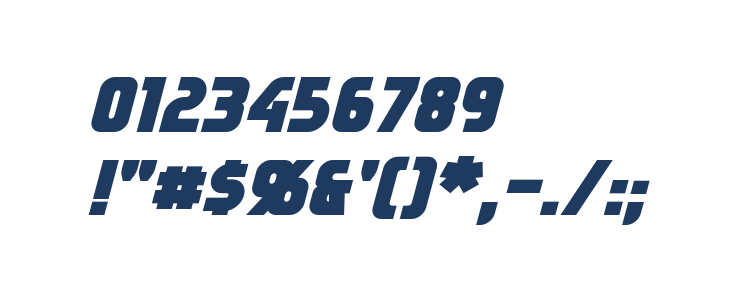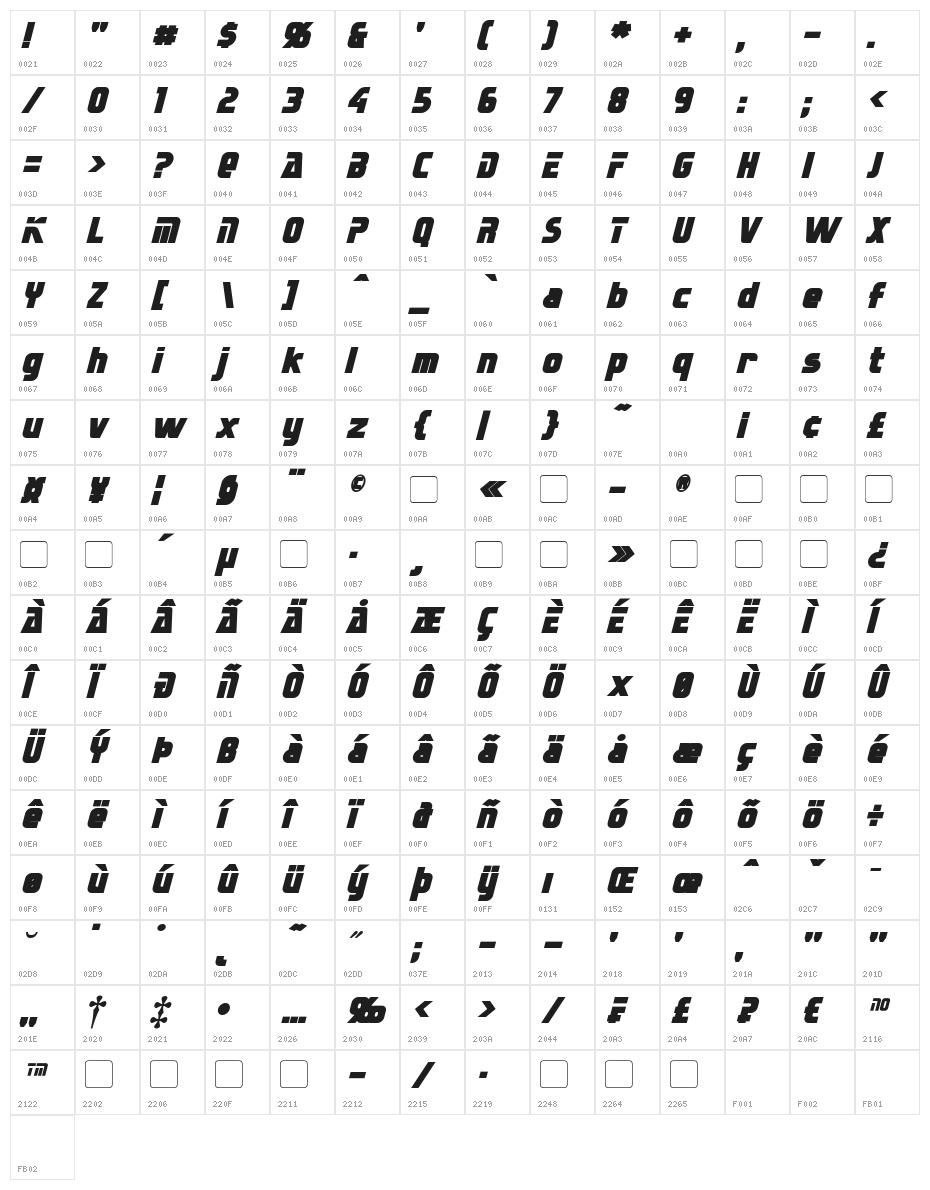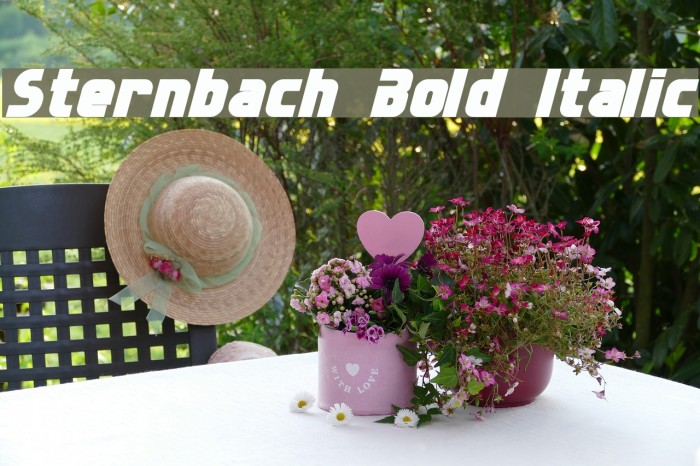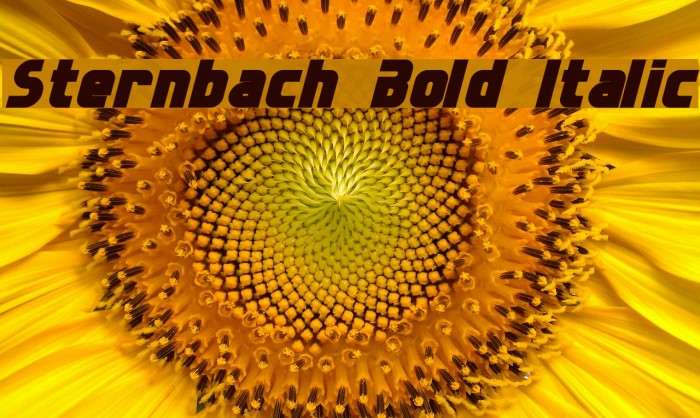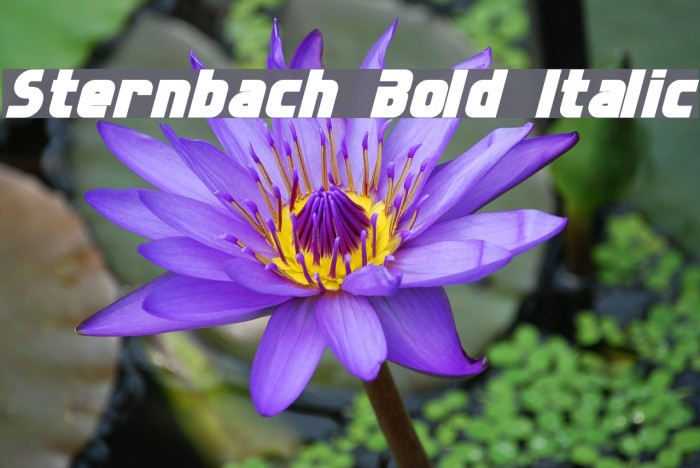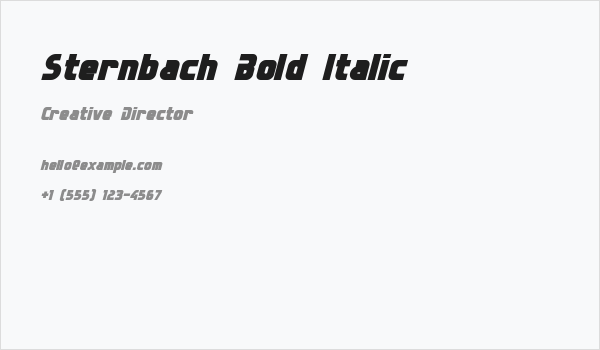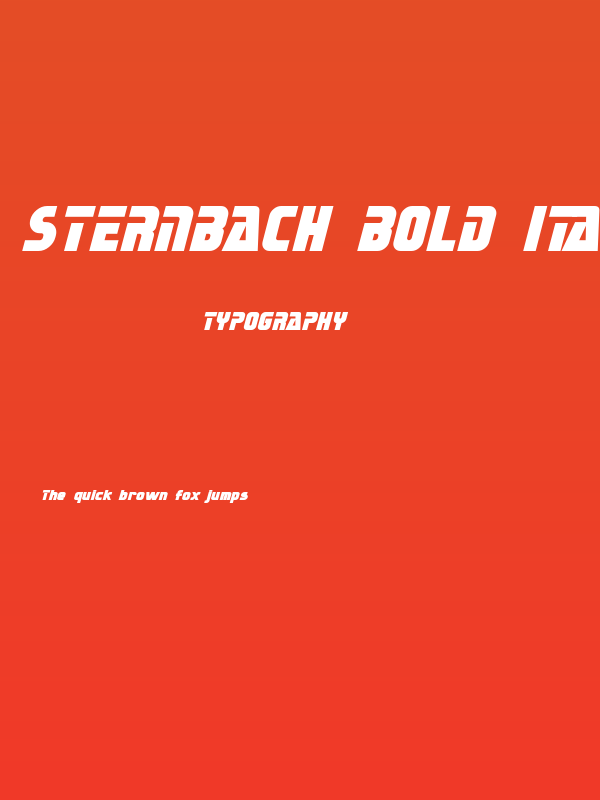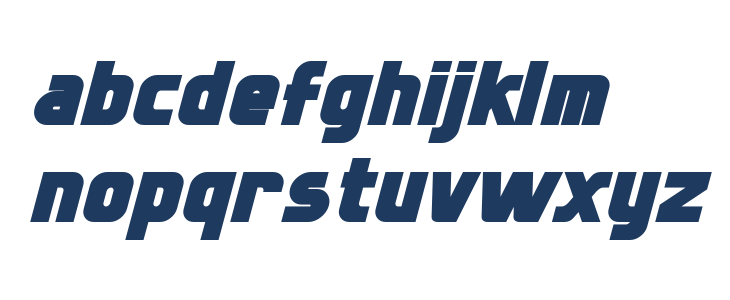
Sternbach Bold Italic Font
Sternbach Bold Italic Description
This font features a bold and italicized style with a strong, dynamic presence. The characters are designed with a forward-leaning slant, giving a sense of movement and urgency. The strokes are thick and consistent, providing a robust and impactful appearance. The uppercase letters are particularly striking, with angular cuts and sharp edges that enhance the font's modern and futuristic feel. The lowercase letters maintain the same boldness, ensuring readability while preserving the overall aesthetic. The numerals are equally bold, matching the style of the alphabetic characters. Special characters are included, maintaining the same design principles, making this font versatile for various applications.
| Proposed Projects | Ideal for branding, advertising, sports team logos, and any project requiring a bold, modern typeface. |